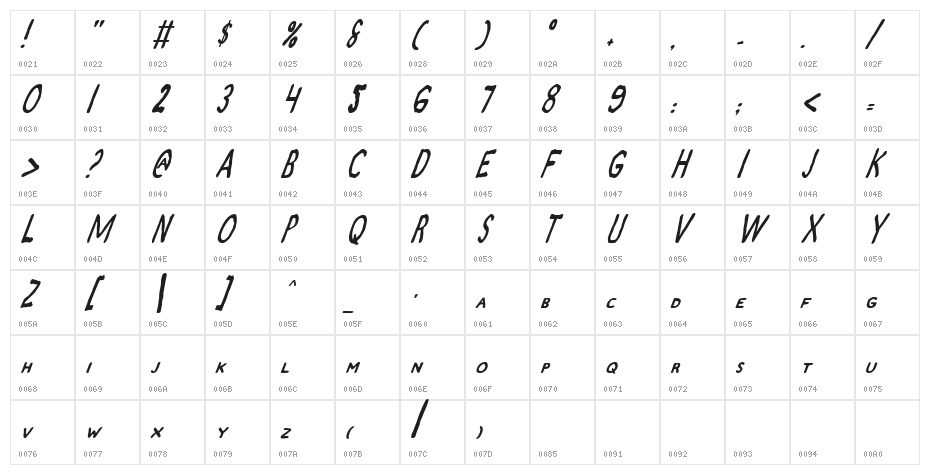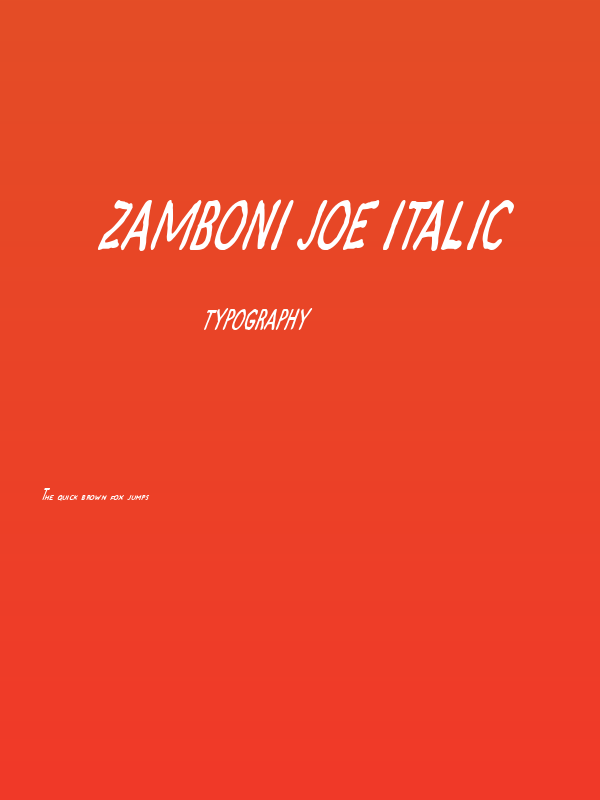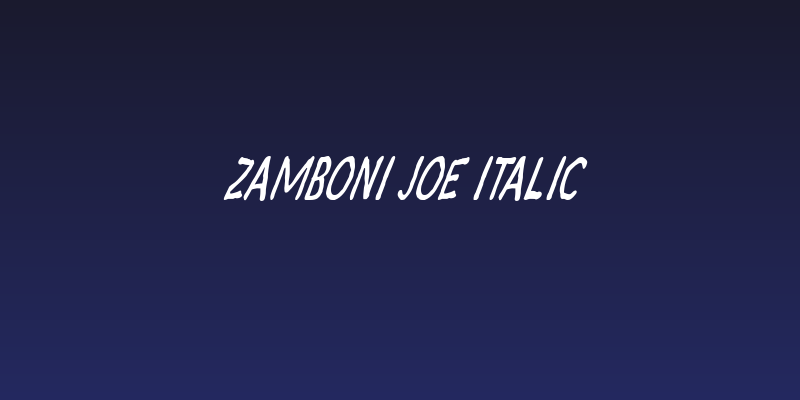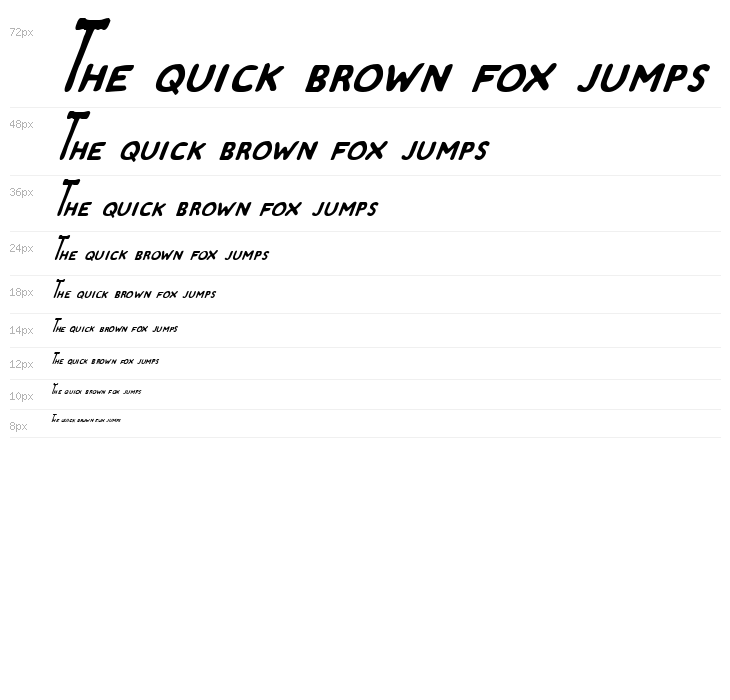
Zamboni Joe Italic Font
Zamboni Joe Italic Description
This font features a dynamic and energetic style with a handwritten appearance. The letters are slightly slanted, giving it an italicized look that adds a sense of motion and fluidity. The strokes are bold and expressive, with varying thickness that creates a lively and informal feel. The uppercase and lowercase letters maintain a consistent style, while the numerals and special characters complement the overall design. This font is ideal for projects that require a personal touch or a creative flair.